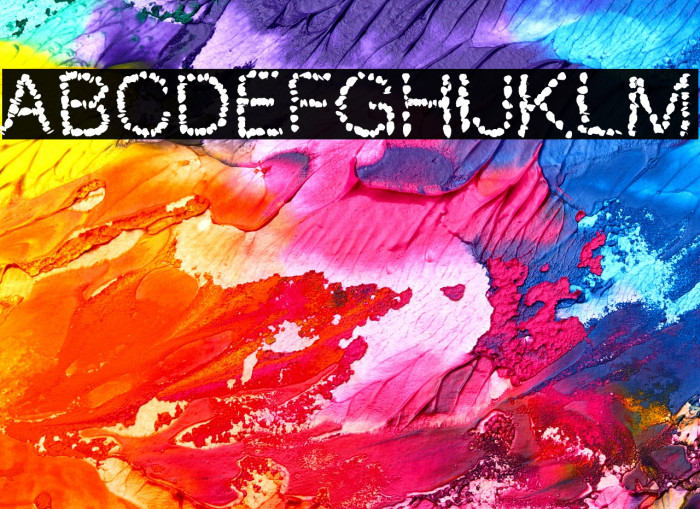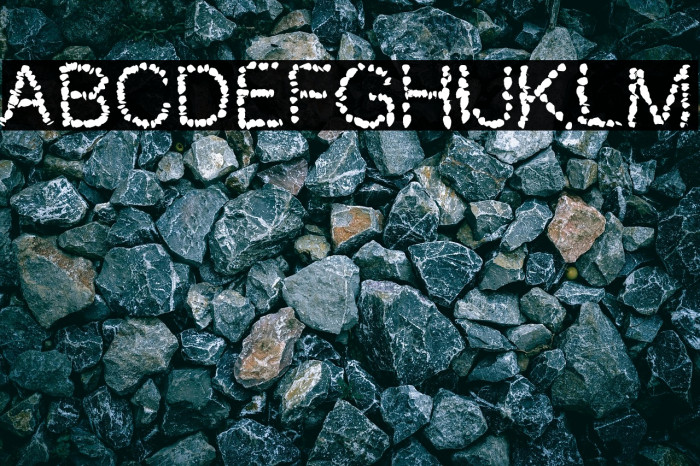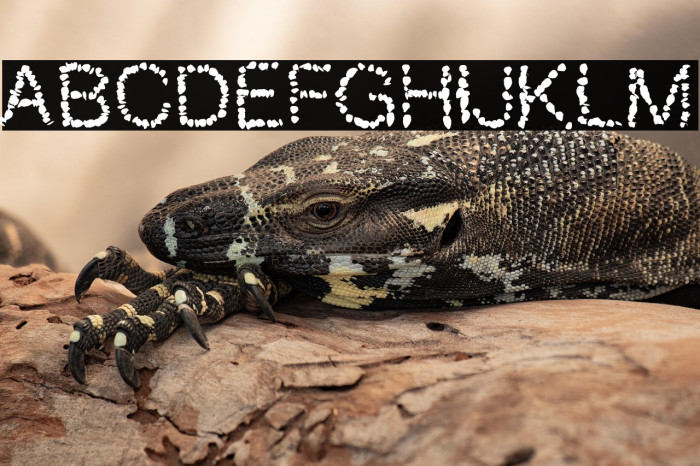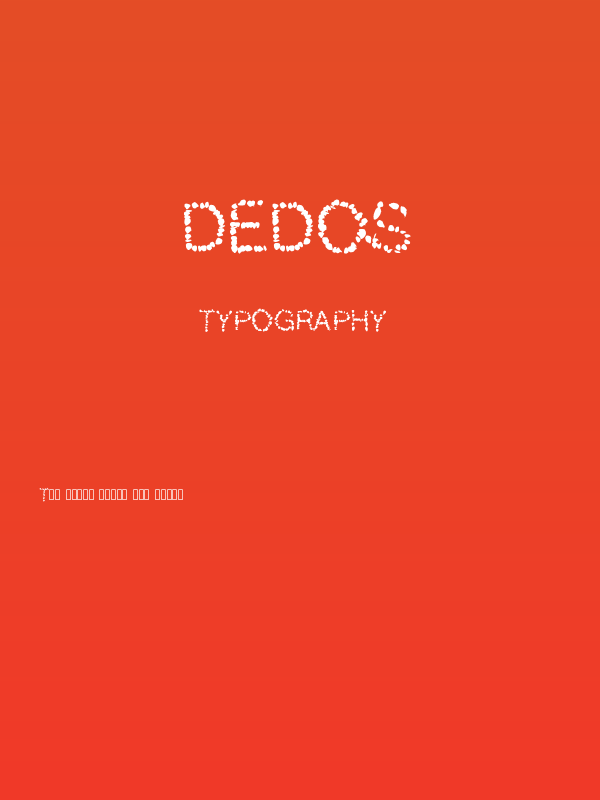
dedos Font
dedos Description
This font features a unique design where each character is composed of small, rounded shapes that resemble fingerprints or small pebbles. The overall appearance is playful and organic, giving it a textured and tactile feel. The uppercase letters are bold and well-defined, while the lowercase letters maintain the same distinctive style. The numbers and special characters are equally consistent with the design, making it a cohesive and visually interesting typeface. The font's playful nature makes it suitable for creative and informal applications.
| Use Case | Logos, Posters, Creative projects |
| Proposed Projects | Ideal for children's books, playful branding, creative posters, and artistic projects. |